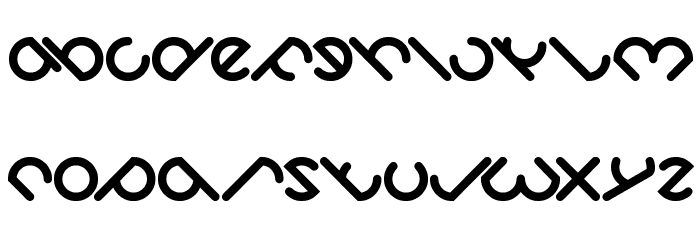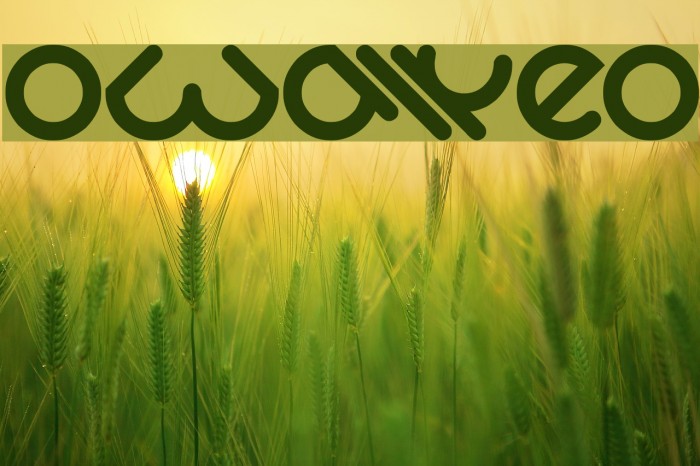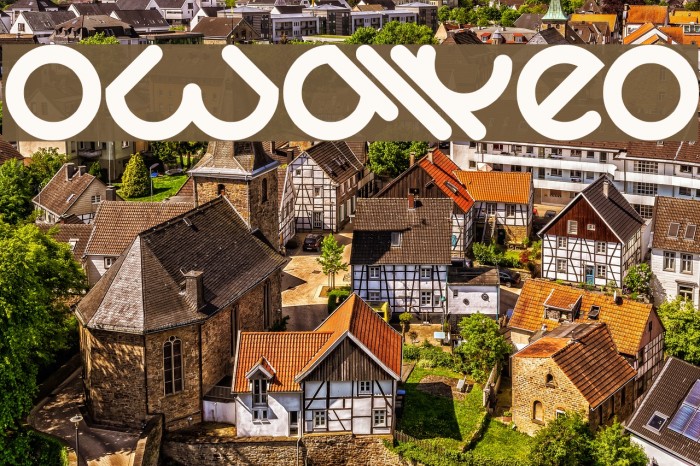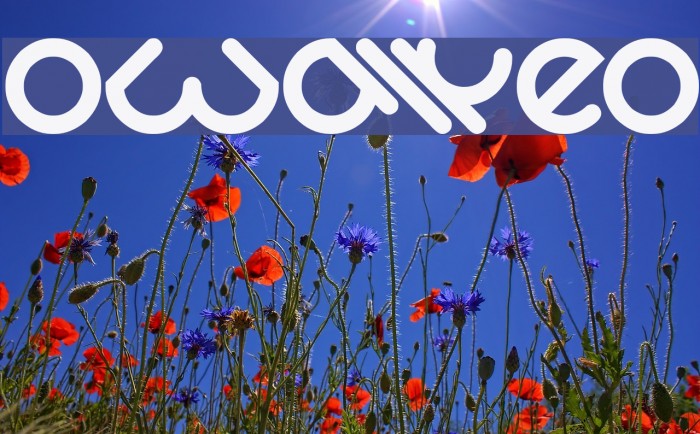
OwaikeO Font
This font features a unique, decorative style with a modern twist. Each character is crafted with a continuous, flowing line that creates a sense of movement and fluidity. The letters are interconnected, giving the appearance of a seamless script. The bold strokes and rounded edges add a playful and artistic touch, making it stand out in any design. The font maintains a consistent thickness throughout, ensuring readability while retaining its artistic flair. Its distinctive style makes it suitable for creative projects that require a touch of elegance and modernity.
A modern, decorative font with interconnected, flowing characters.
- Proposed Projects: Ideal for creative branding, artistic posters, modern invitations, and unique logo designs.
- Character Spacing: Tight
- Overall Style: Modern, Decorative
- Use Case: Logos, Headlines, Artistic Projects